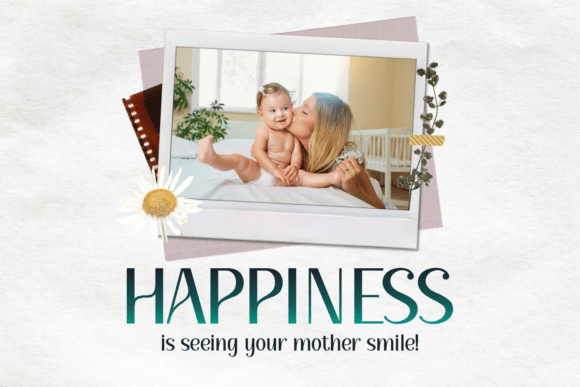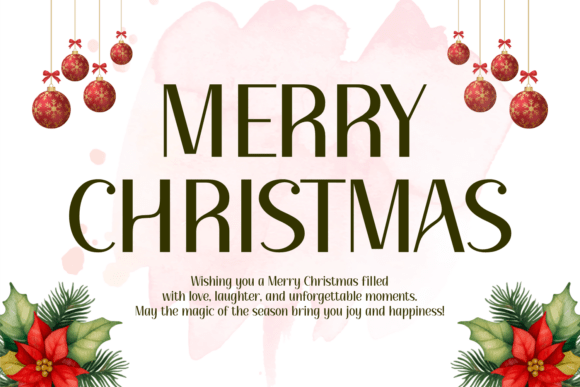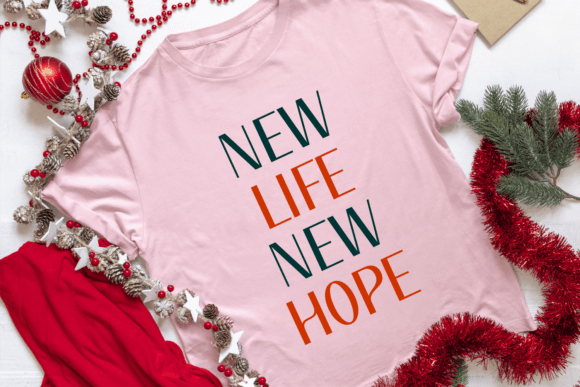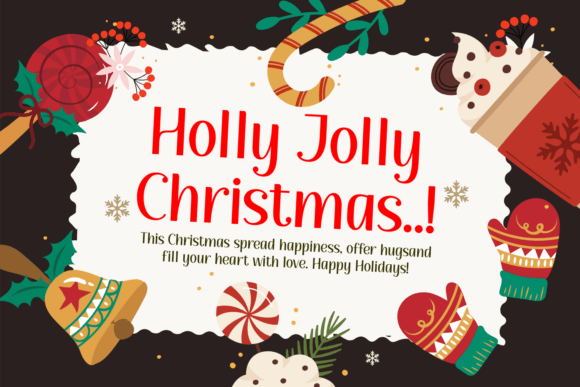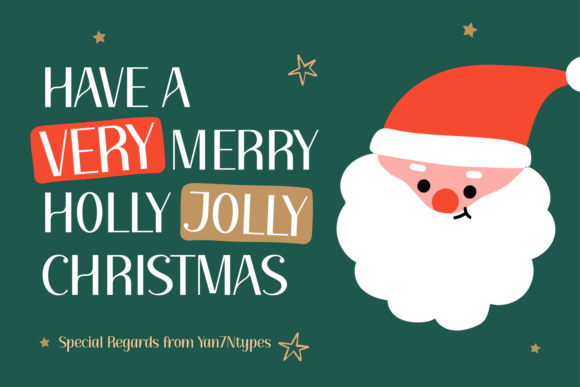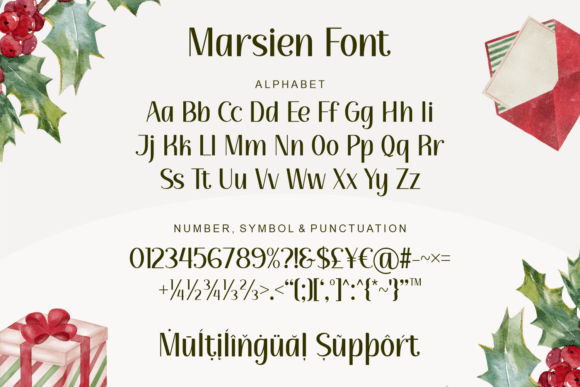
Introduction to Marsien Font
Introducing the Marsien font – an embodiment of modern elegance fused with a dash of whimsical charm.
Boasting of unmatched readability, Marsien strides its way into the realm of versatility with seamless ease Whether it’s high-end branding that radiates luxury, eye-catching logos, captivating packaging design, strategically crafted marketing materials, or heartwarming invitations, Marsien fits effortlessly.
Key Features of Marsien Font